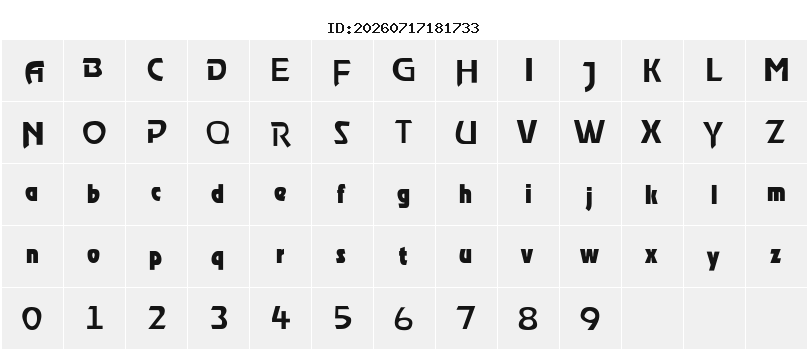
About Berton Thin.ttf
Berton Thin.ttf is a modern, elegant sans-serif font designed for ultimate readability and visual harmony. Perfect for branding, headlines, web design, and print materials.